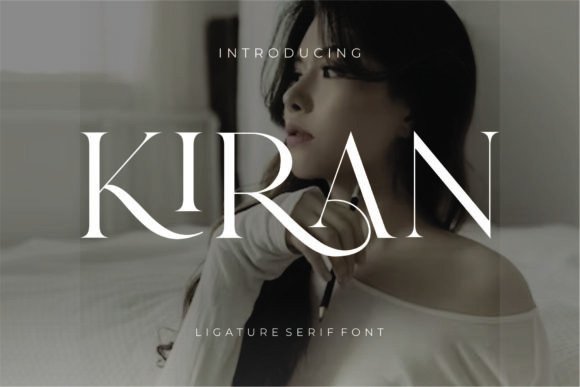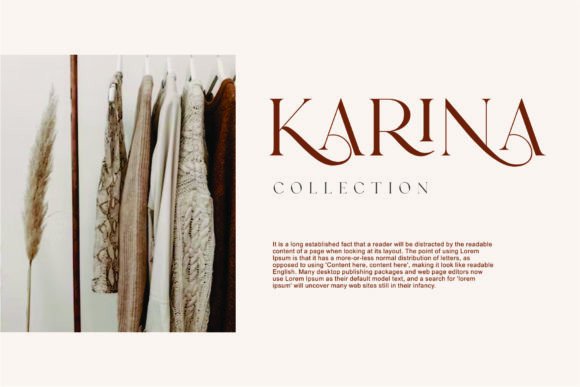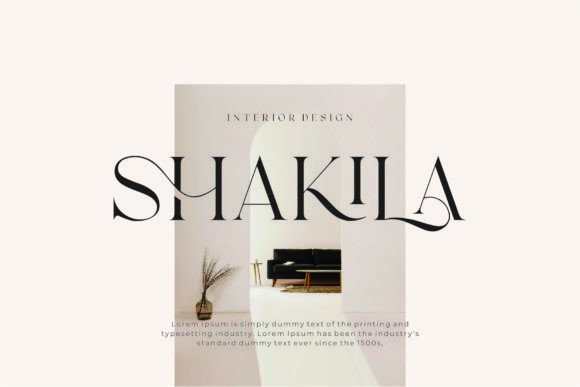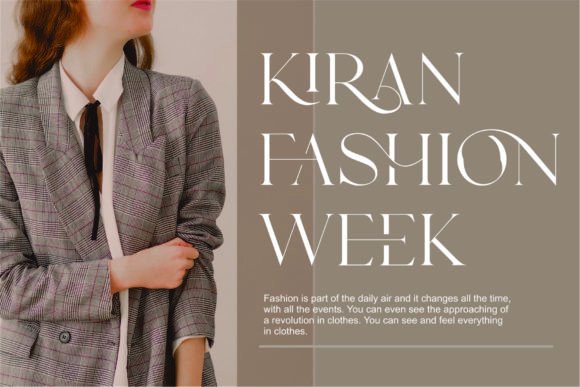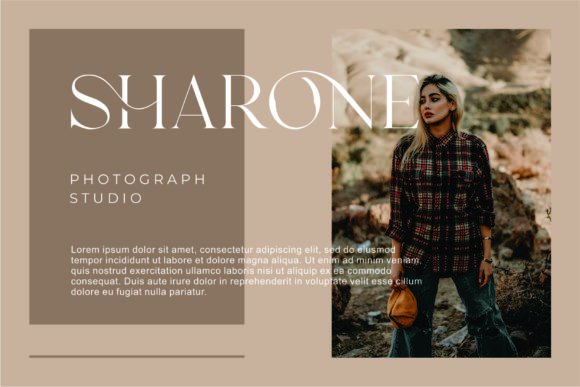
Kiran Font
**Kiran Ligature Serif Font** inspired by the famous minimalist logo perfect for the purposes of designing templates, brochures, videos, advertising branding, logos, invitation, layout design, elegant crafting, beauty design and more.
+ Standard glyphs
+ Ligatures
+ International Accent
Fonts include multilingual support